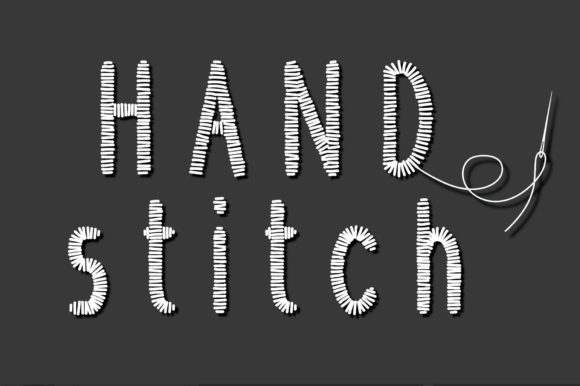
Handstitch Font: Adding a Personal Touch to Your Designs
The Handstitch font is a beautiful, cute, fun, and simple decorative font that can add an authentic style and a friendly touch to any design project. Whether you’re working on a kids’ project, creating a poster, or brainstorming crafty ideas, this font is sure to bring a unique and personalized feel to your work.
What is Handstitch Font?
Handstitch font is a type of decorative font that mimics the look of hand-stitched letters. It’s a digital font that can be used on computers and other digital devices, but it has a charming, handmade quality that makes it stand out from more traditional fonts.
The Handstitch font features letters that are designed to look like they’ve been stitched together with thread. The lines are slightly irregular, and the letters have a soft, rounded quality that gives them a friendly and approachable feel.
Characteristics of Handstitch Font
The Handstitch font has several characteristics that make it a great choice for a wide range of design projects. Some of its key features include:
- Beautiful and Cute: The Handstitch font is a beautiful and cute font that’s sure to add a touch of charm to any design project.
- Fun and Simple: The font is fun and simple, making it a great choice for kids’ projects, posters, and other crafty ideas.
- Decorative: The Handstitch font is a decorative font that’s perfect for adding a personal touch to your designs.
- Authentic Style: The font has an authentic, handmade quality that gives it a unique and personalized feel.
- Versatile: The Handstitch font can be used on a wide range of design projects, from posters and flyers to t-shirts and other crafty projects.
Uses for Handstitch Font
The Handstitch font is a versatile font that can be used on a wide range of design projects. Here are some ideas for using this font:
- Kids’ Projects: The Handstitch font is a great choice for kids’ projects, such as making posters, flyers, or other materials for a school project.
- Posters: The font is perfect for creating posters for events, such as concerts, festivals, or other community events.
- Crafty Ideas: The Handstitch font can be used on a wide range of crafty projects, such as making t-shirts, mugs, or other personalized items.
- Social Media Graphics: The font can be used to create social media graphics, such as Facebook posts, Instagram stories, or other visual content.
- Branding: The Handstitch font can be used as a branding font for businesses that want to add a personal touch to their logo or marketing materials.
Benefits of Using Handstitch Font
There are several benefits to using the Handstitch font in your design projects. Some of the advantages of this font include:
- Unique and Personalized: The Handstitch font has a unique and personalized feel that can help your designs stand out from the crowd.
- Easy to Read: The font is easy to read, even at small sizes, making it a great choice for a wide range of design projects.
- Versatile: The Handstitch font can be used on a wide range of design projects, from posters and flyers to t-shirts and other crafty projects.
The Handstitch font is a beautiful, cute, fun, and simple decorative font that’s perfect for adding a personal touch to your design projects. With its unique and personalized feel, this font is sure to bring a touch of charm and authenticity to any design project.
Whether you’re working on a kids’ project, creating a poster, or brainstorming crafty ideas, the Handstitch font is a great choice. Its versatility, ease of use, and cost-effectiveness make it a great solution for designers and non-designers alike.
FAQs About Handstitch Font
- Q: What is Handstitch font?
- A: The Handstitch font is a decorative font that mimics the look of hand-stitched letters.
- Q: Is Handstitch font easy to read?
- A: Yes, the Handstitch font is easy to read, even at small sizes.